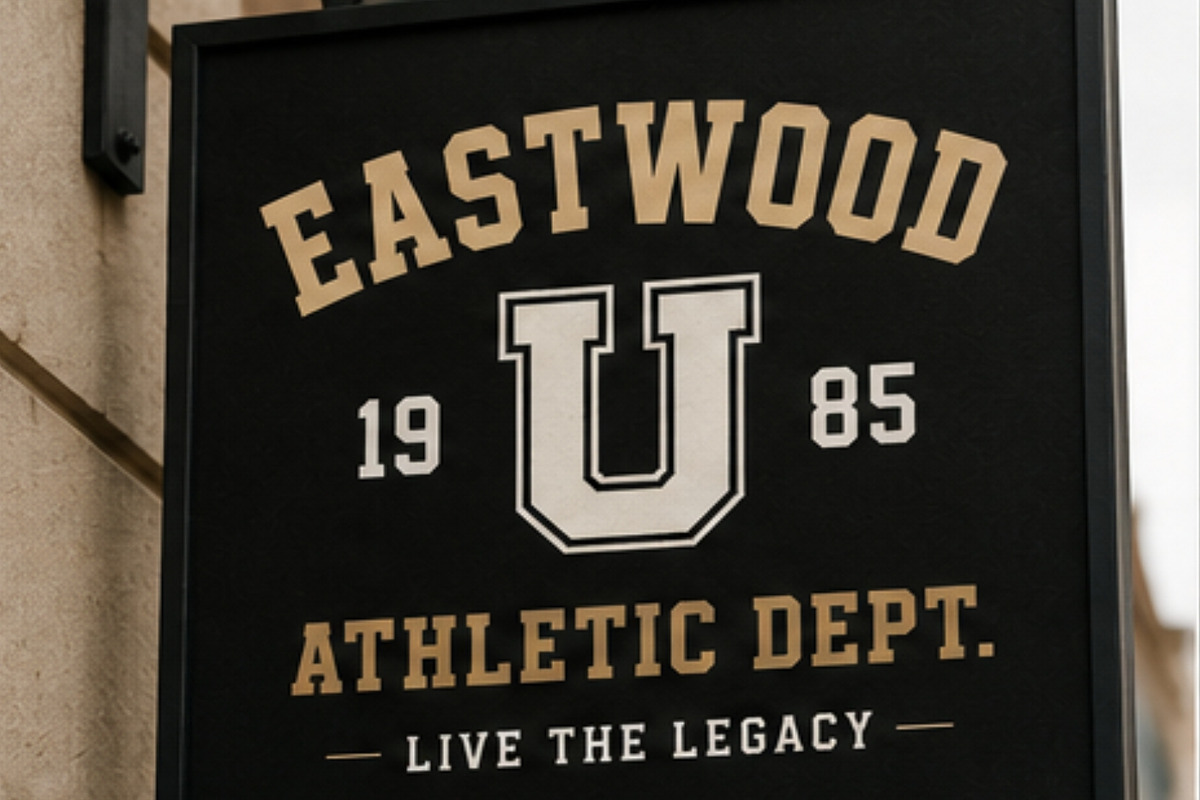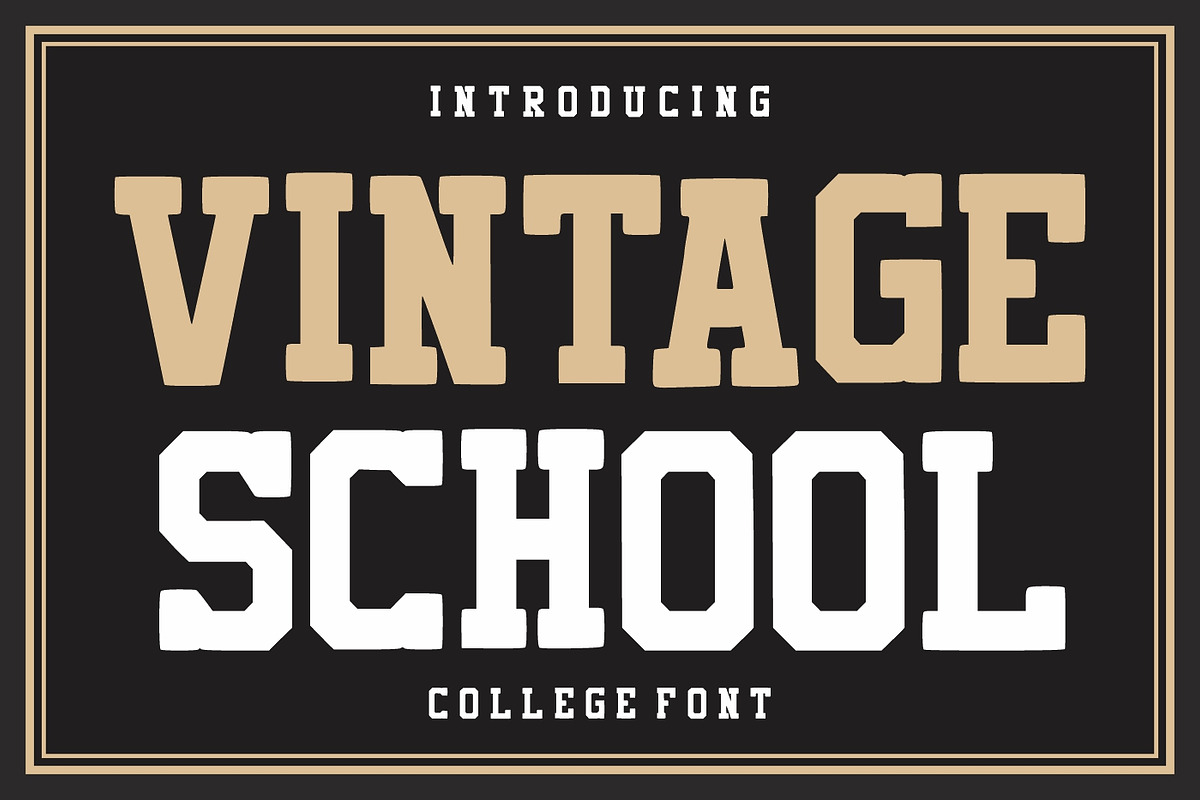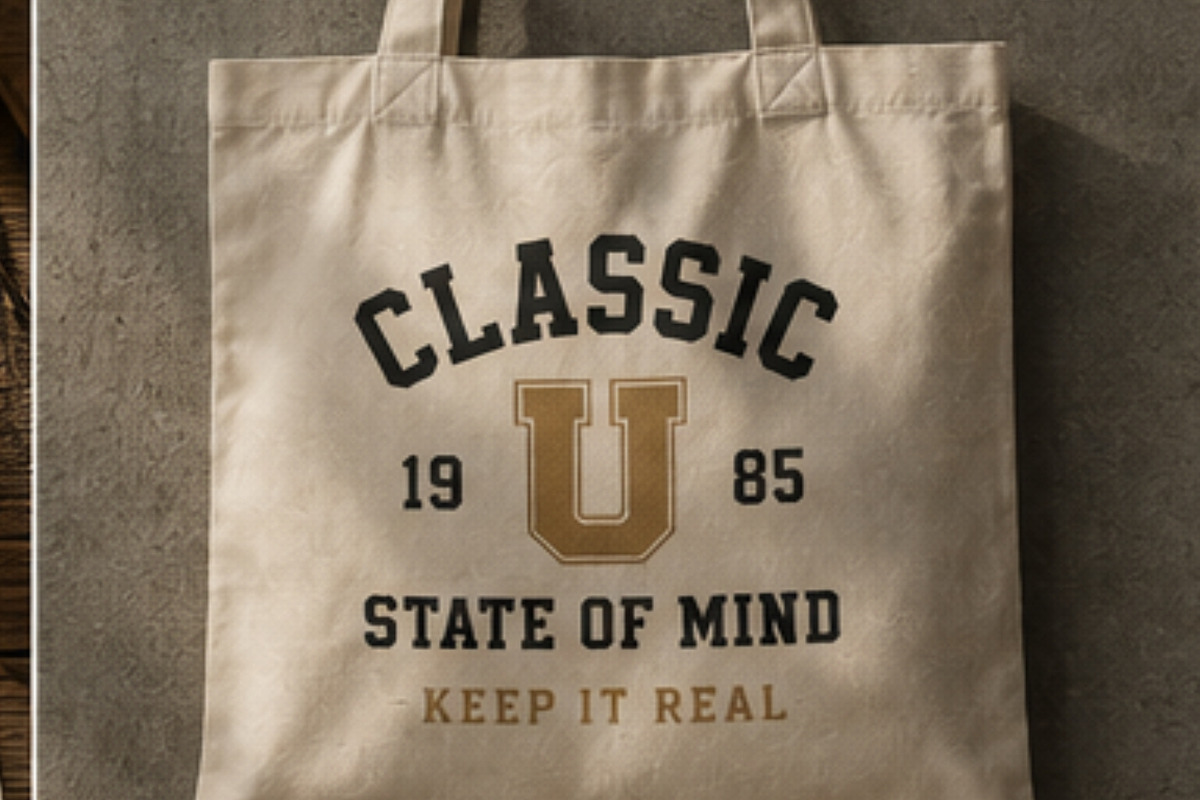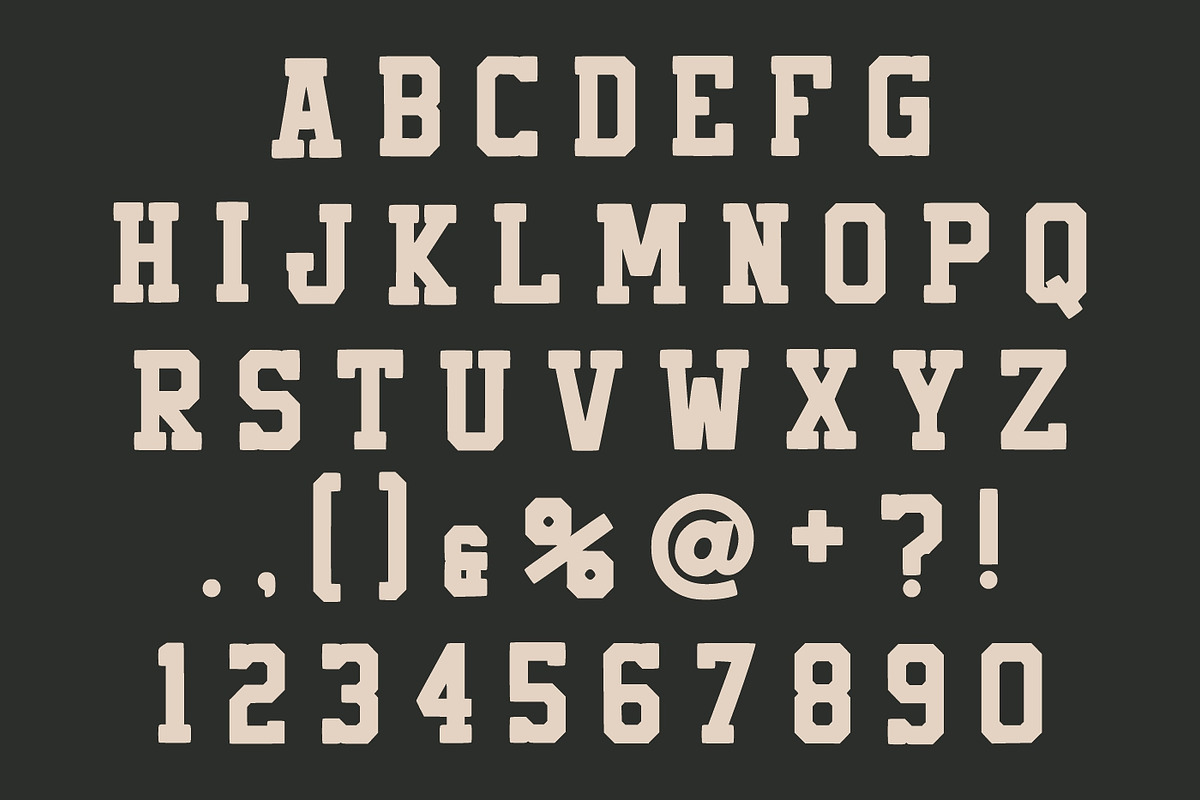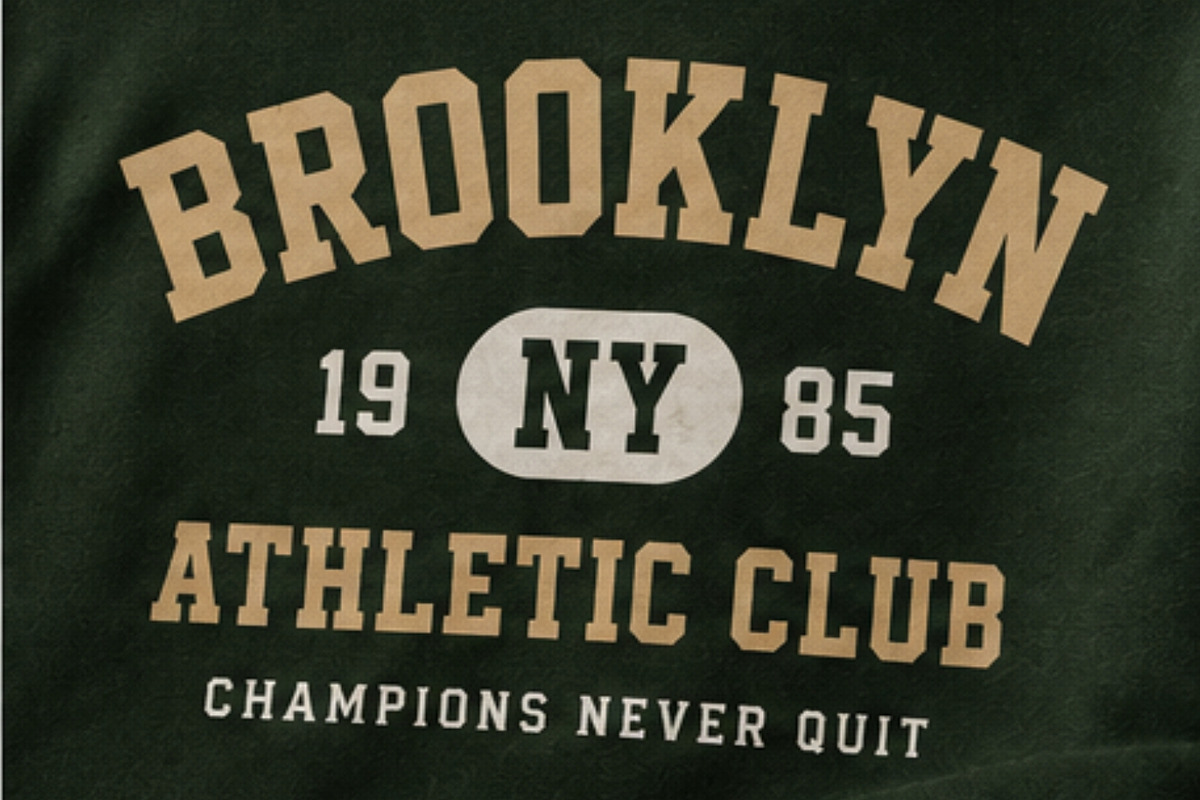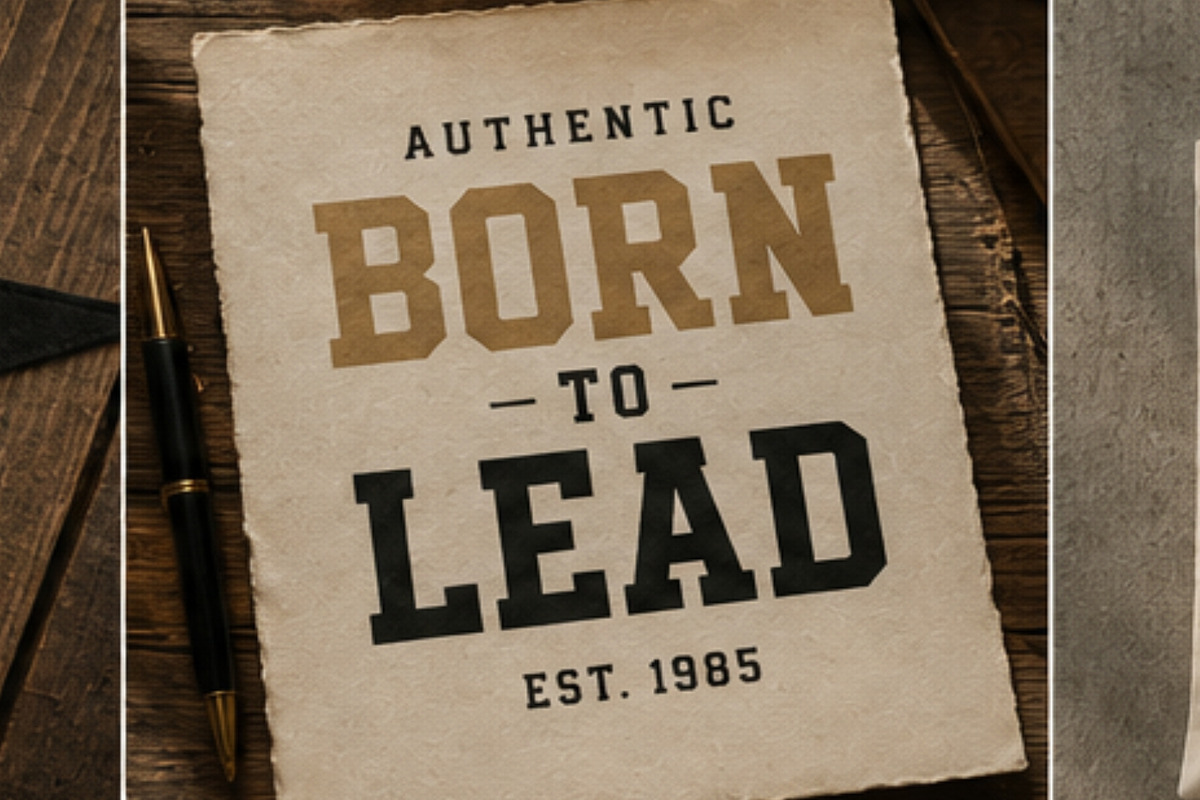
Vintage School
Vintage School is a bold collegiate display font inspired by classic varsity lettering, traditional university emblems, and the timeless spirit of American campus culture. Featuring strong slab serif letterforms, athletic proportions, and vintage-inspired details, this font captures the authentic look of old-school college uniforms, championship banners, sports team logos, and academic heritage branding.
Designed to make a powerful statement, Vintage School combines strength, confidence, and nostalgia into a versatile typeface that stands out across a wide range of creative projects. Its bold geometric structure delivers excellent readability while maintaining the iconic character associated with classic collegiate typography. Whether used for headlines, logos, apparel, merchandise, posters, or branding materials, this font instantly creates a professional and memorable impact.
Perfect for sports-themed designs, university branding, school merchandise, football and baseball graphics, team uniforms, athletic departments, championship promotions, mascot branding, and vintage Americana projects, Vintage School brings a sense of tradition and achievement to every design. The font also works beautifully for retro packaging, café branding, badges, labels, event posters, and custom apparel where a strong and authentic vintage appearance is desired.